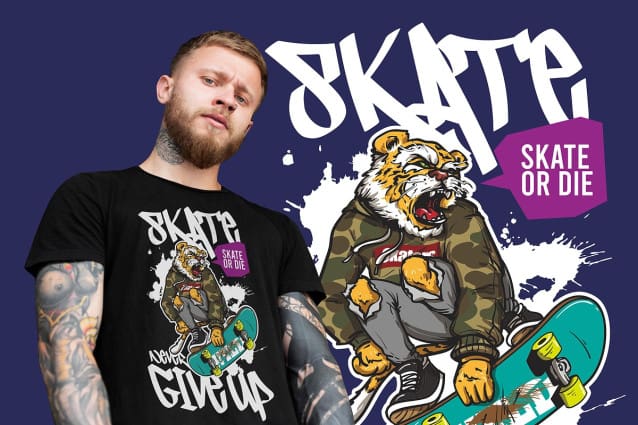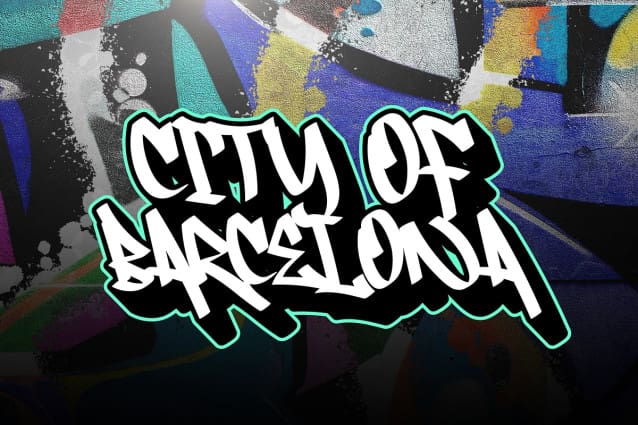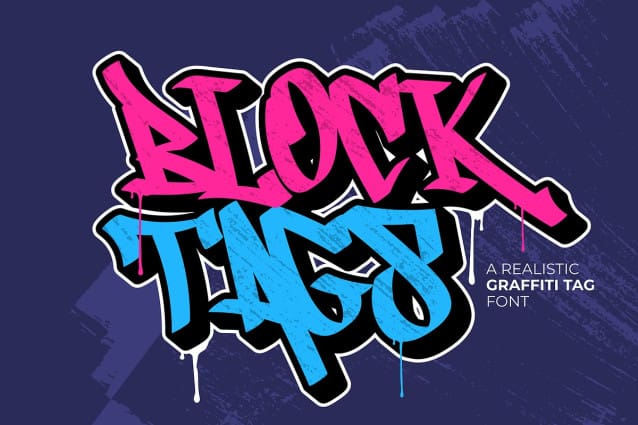
Block Tags Font
Block Tags Font – Realistic Graffiti Font! This font was designed so that users can use it more easily and make graffiti designs easier. BlockTags are very suitable for use in various media such as; packaging, logos, labels, posters, shirt designs, bulletins, typography, and many other media, especially with graffiti look.